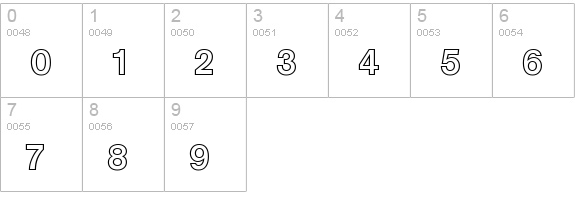
Arezzo-Outline-Regular Font Details
Arezzo-Outline-Regular is the standard, neutral variant in the Arezzo typeface family \xE2\x80\x94 well suited to general body text, paragraphs, and standard typographic work.
Arezzo-Outline-Regular is a modern and sleek font that combines elegance with a touch of playfulness. Its clean lines and geometric shapes make it perfect for a wide range of design projects, from branding to packaging to web design. This versatile font is ideal for creating eye-catching headlines, logos, and other visual elements that demand attention. The Arezzo-Outline-Regular font is free to download at FontsMarket.com, making it accessible to designers of all levels. Whether you're a seasoned professional looking for a new addition to your font library or a beginner exploring typography for the first time, this font is a great choice. With its unique style and easy readability, Arezzo-Outline-Regular is sure to enhance any project you use it in.